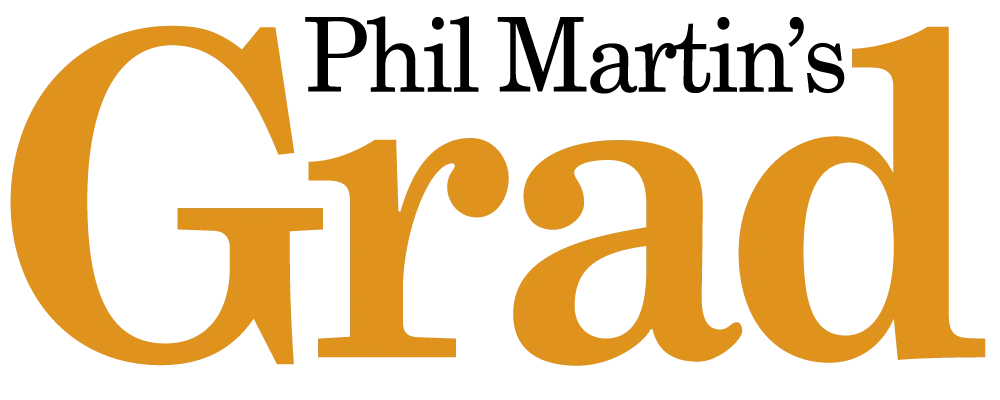
Introducing Grad
Sample of Phil Martin’s Grad typeface
For over ten years, Grad has been trapped inside Phil Martin’s old DOS computer. Now it’s out.
Phil Martin designed over 400 typefaces from the late 1960s through the 1980s, most of them released as film fonts for the VGC Typositor and licensed exclusively to franchised typesetting houses. Grad is Phil’s first and only foray into digital type. He designed it around 1990 for his own use. He conceived it as a redesign of the classic Century Schoolbook. Unfortunately, Grad only existed in an old and obsolete font format.
In early 2004, Phil approached me with the idea of doing an outline version of Grad for general release. I set to work using laser prints of Grad provided by Phil and samples of the original ATF Century Schoolbook. The result is a family of three OpenType fonts with advanced typographic features such as real small caps, ligatures, old style numerals, swash alternates and more.